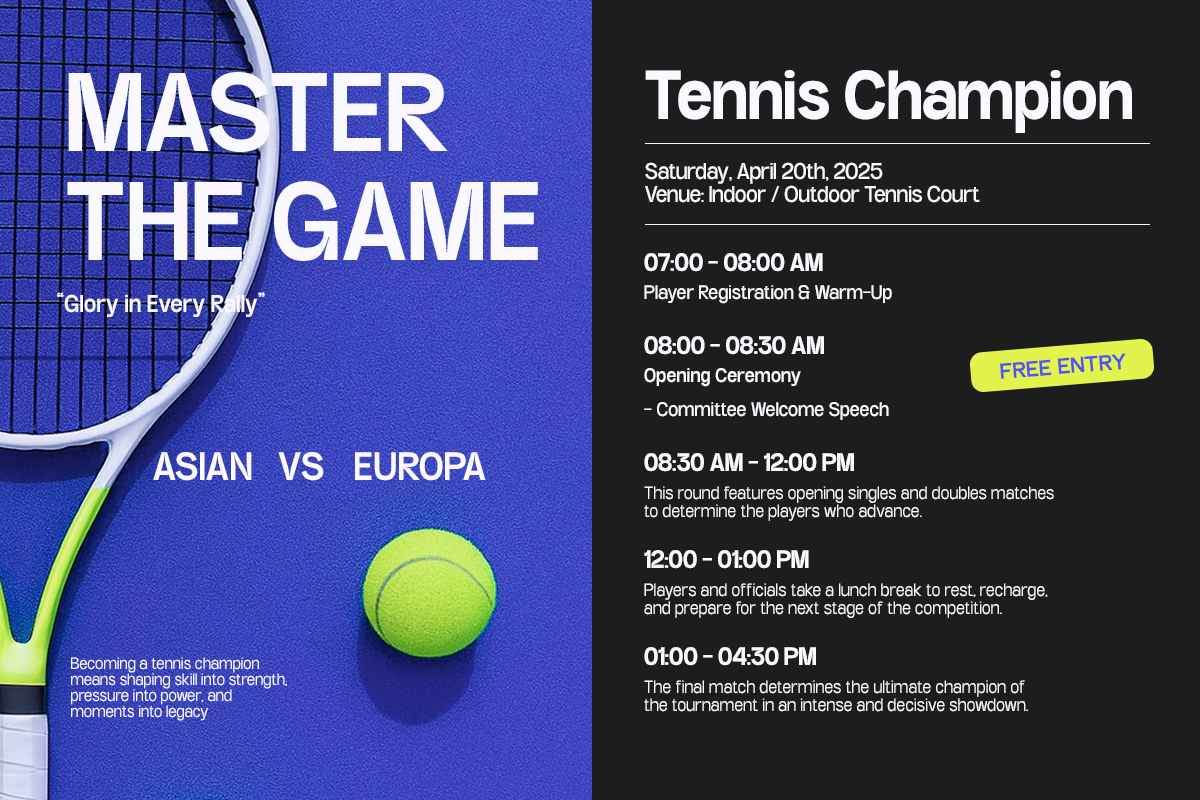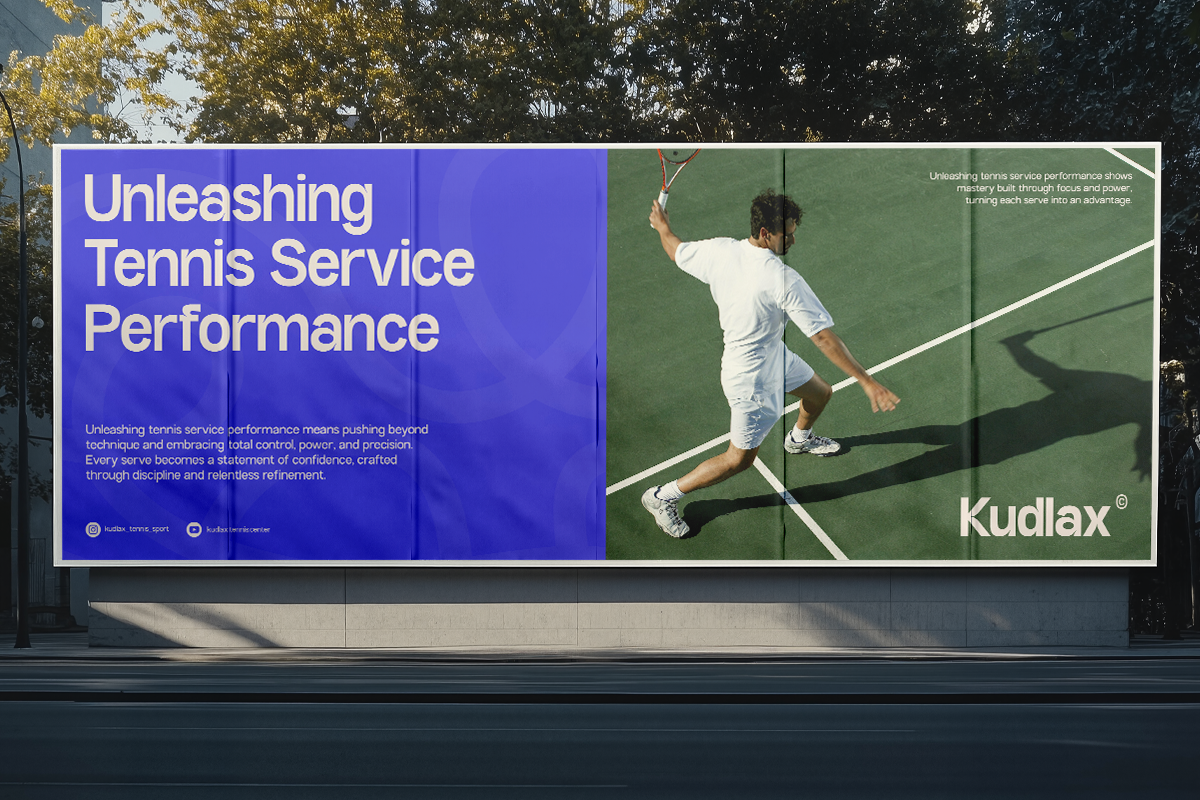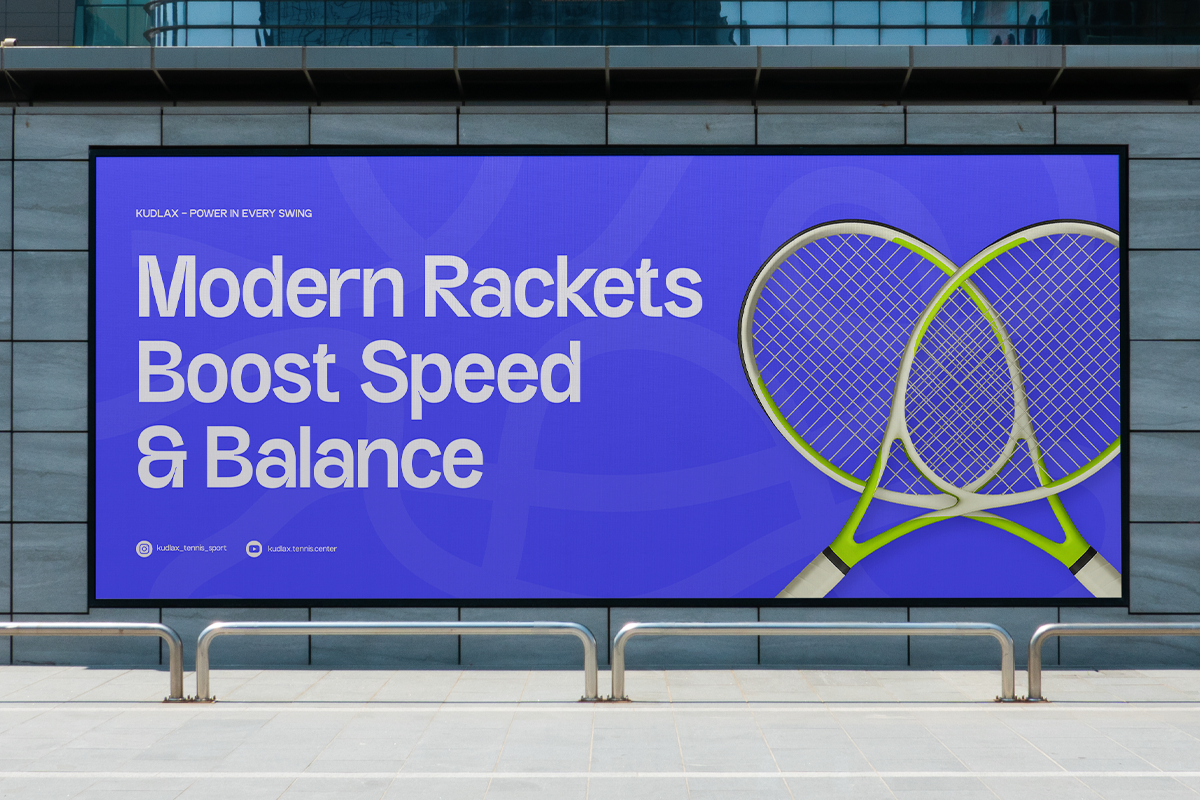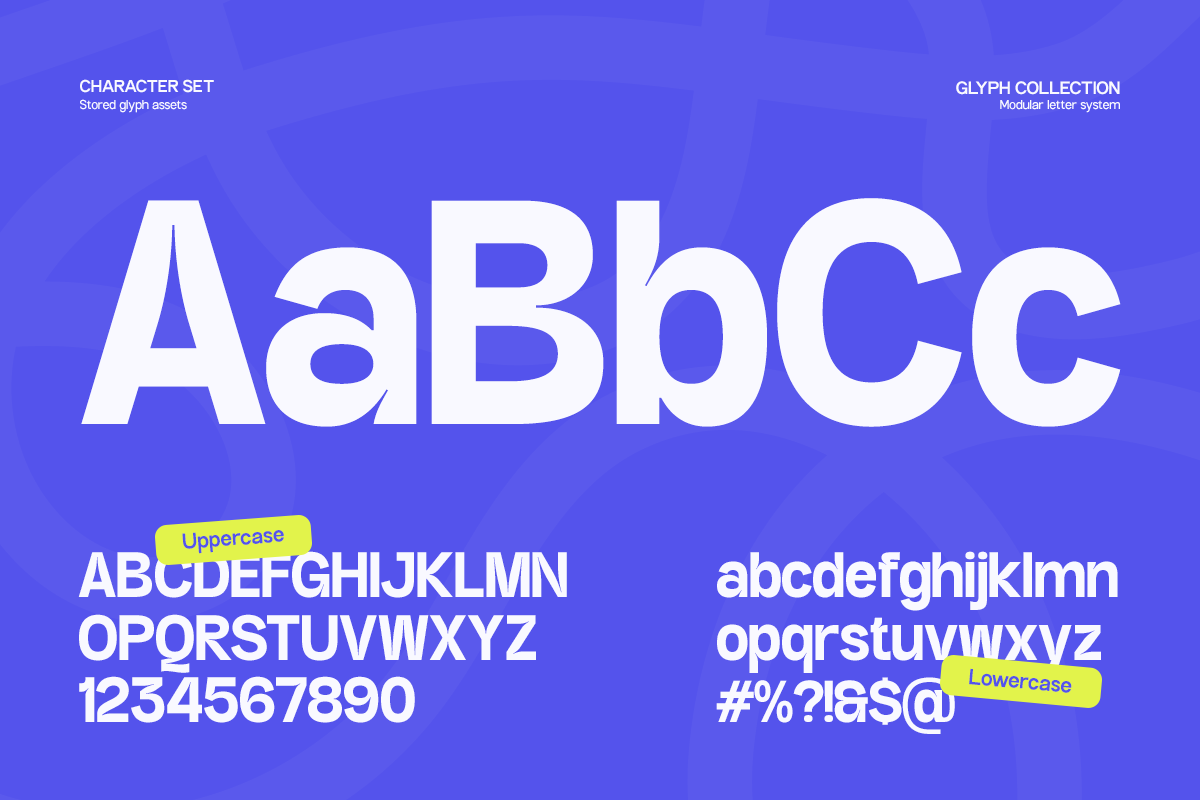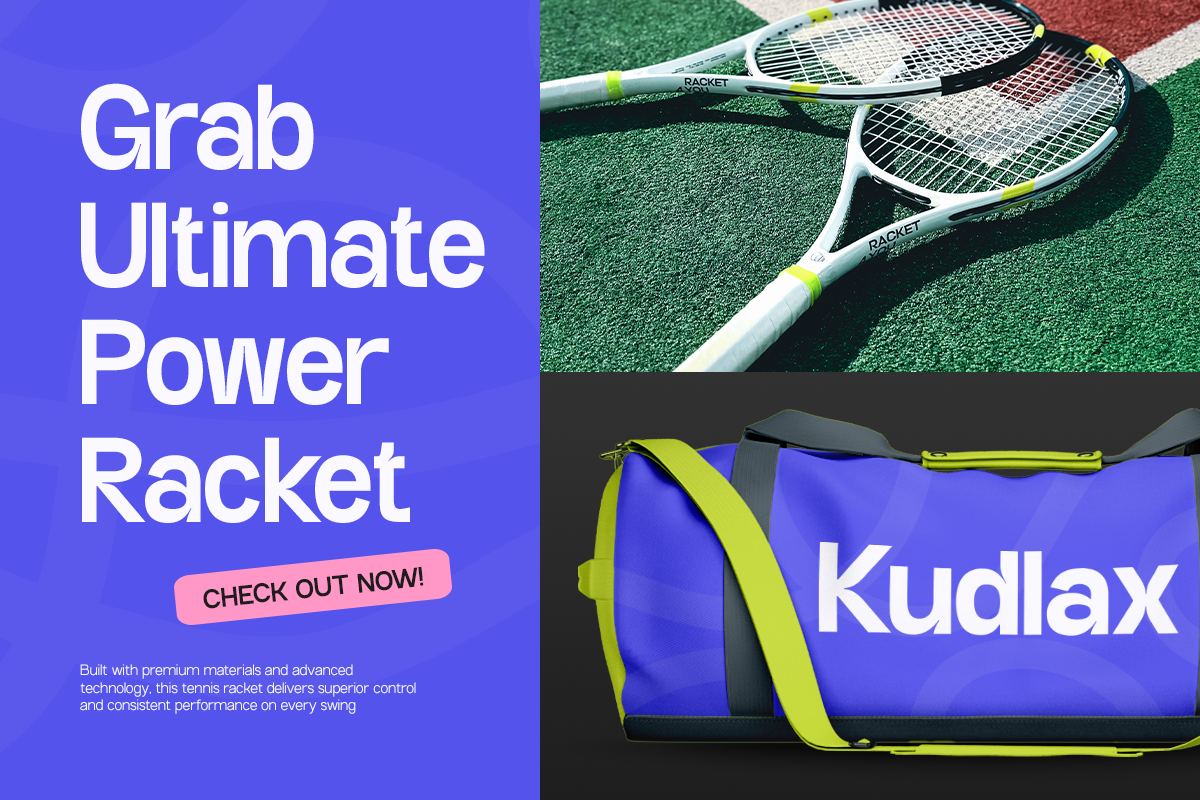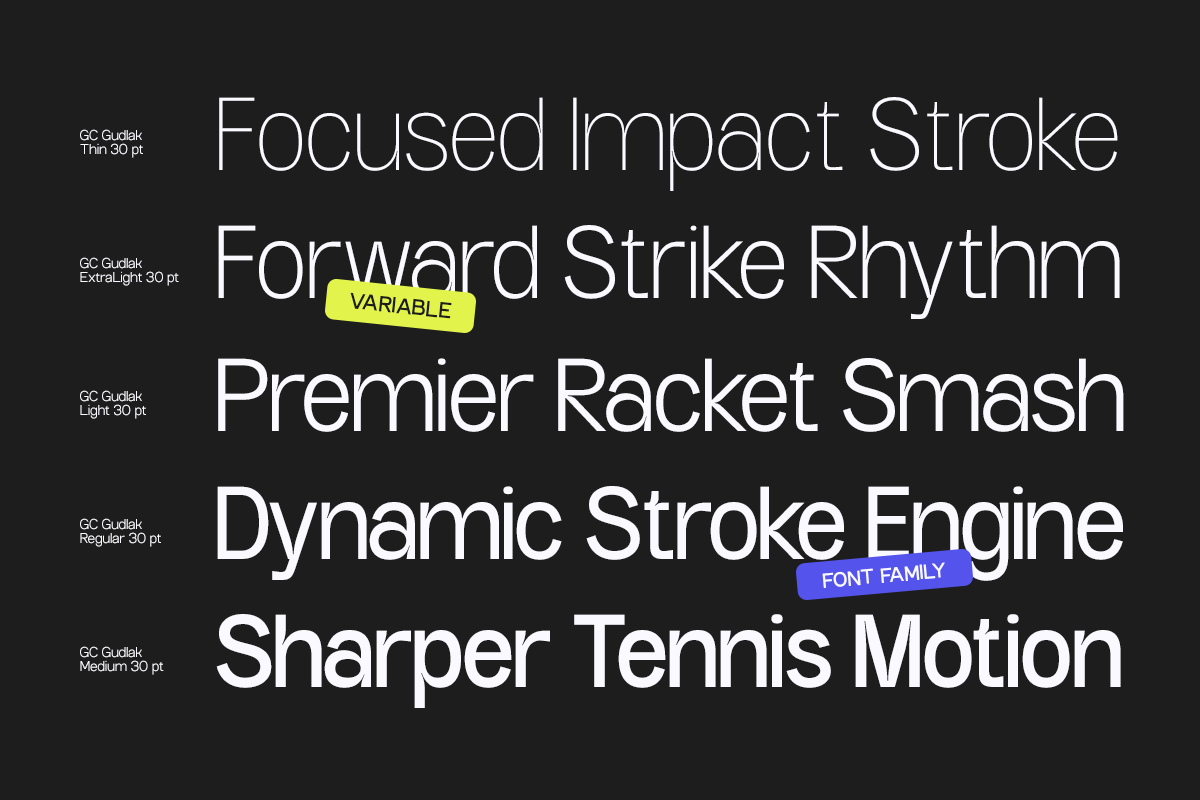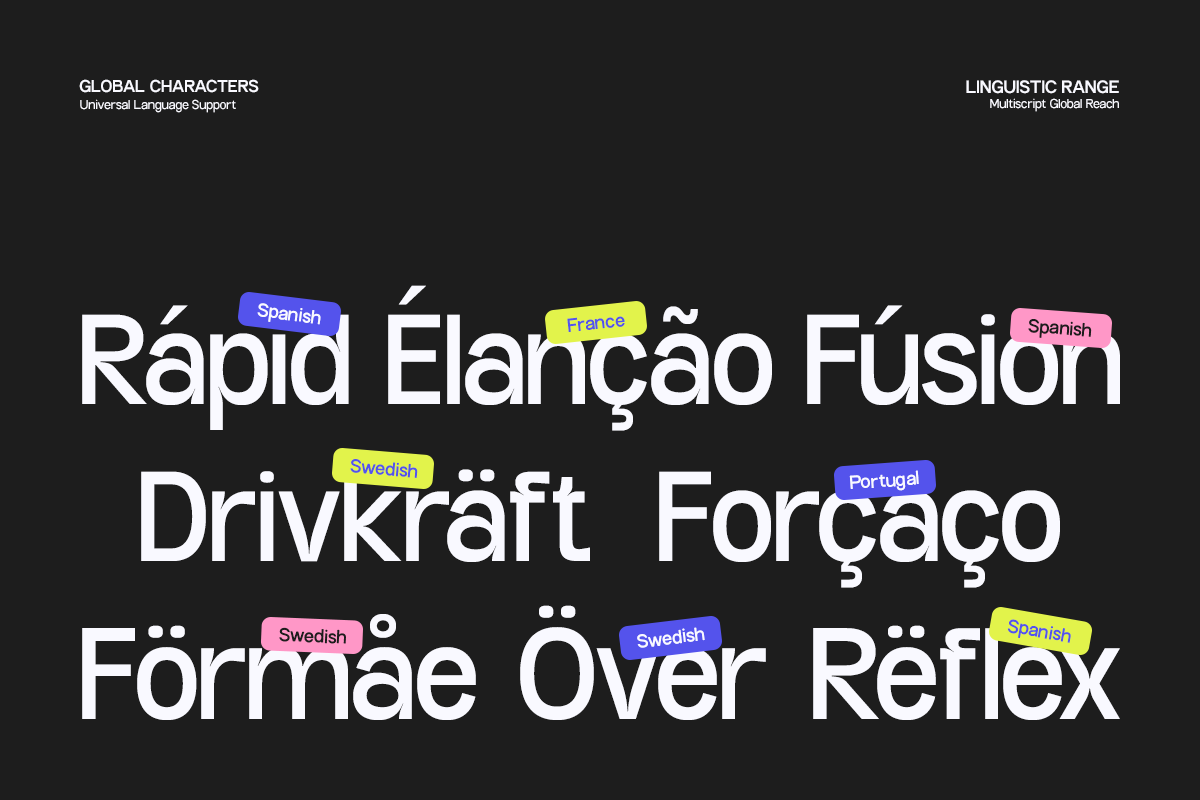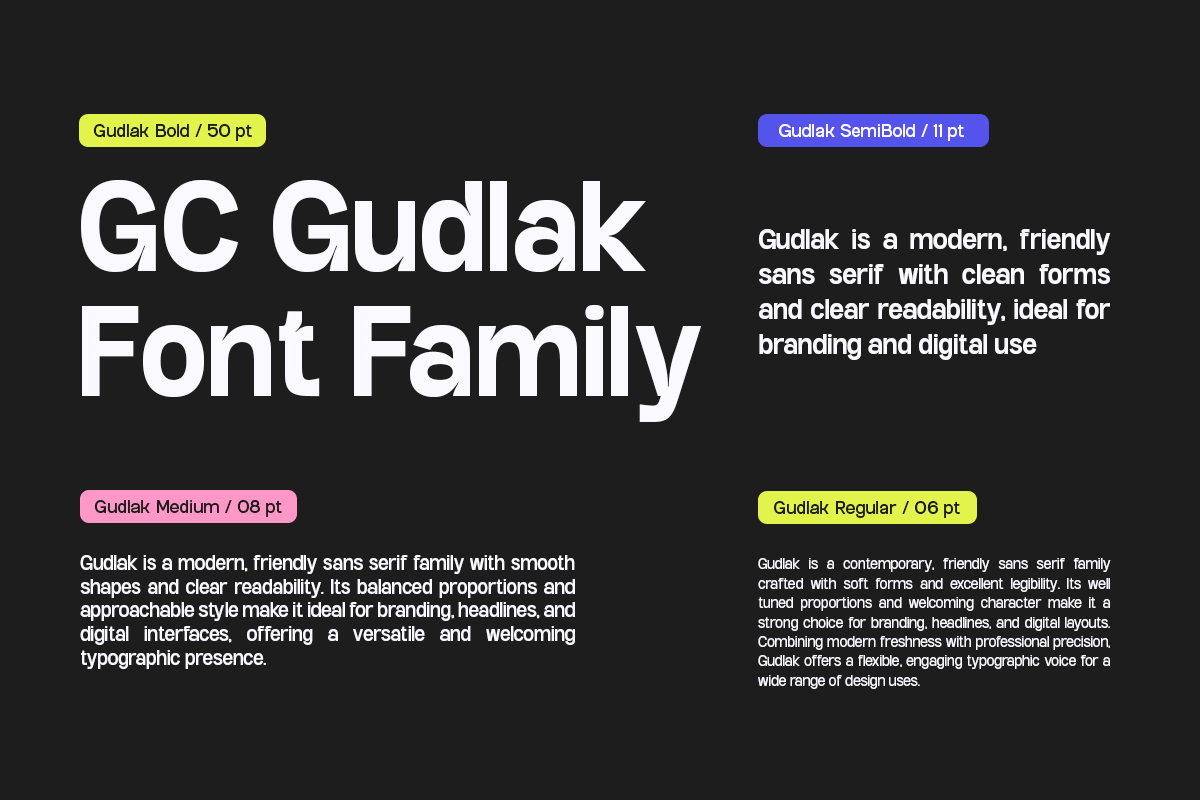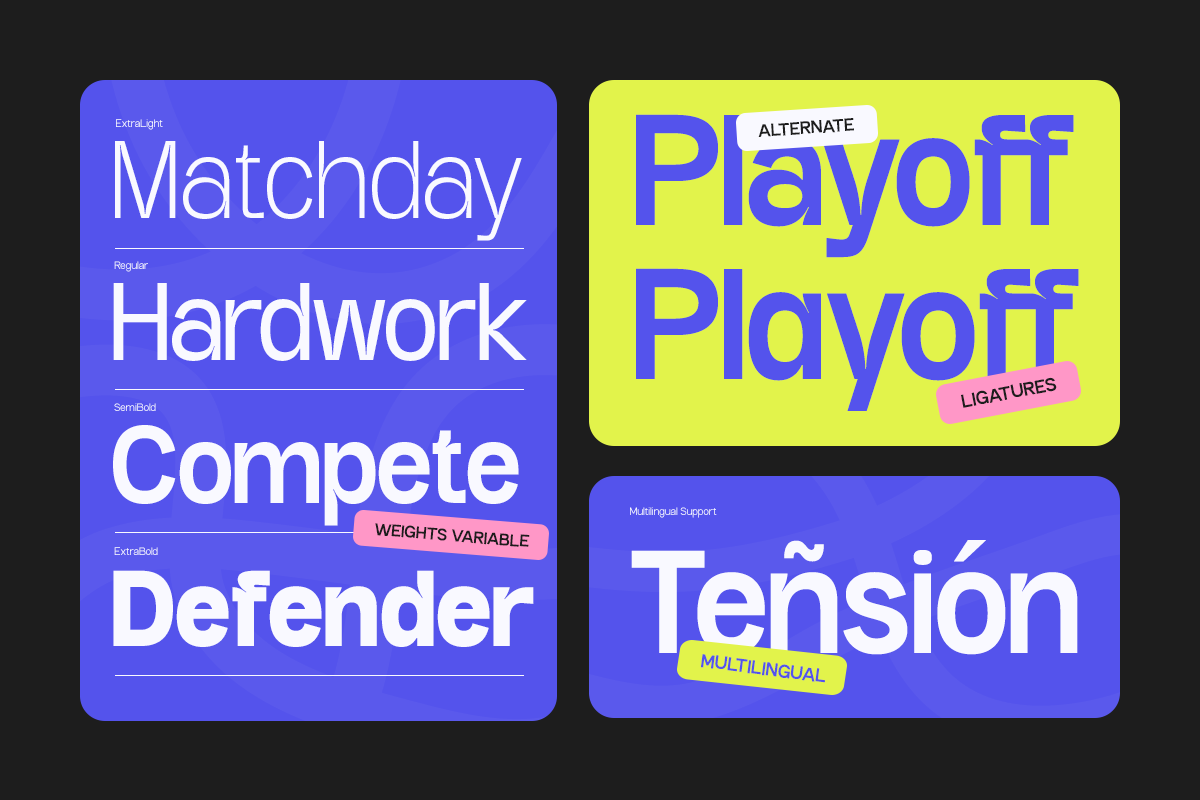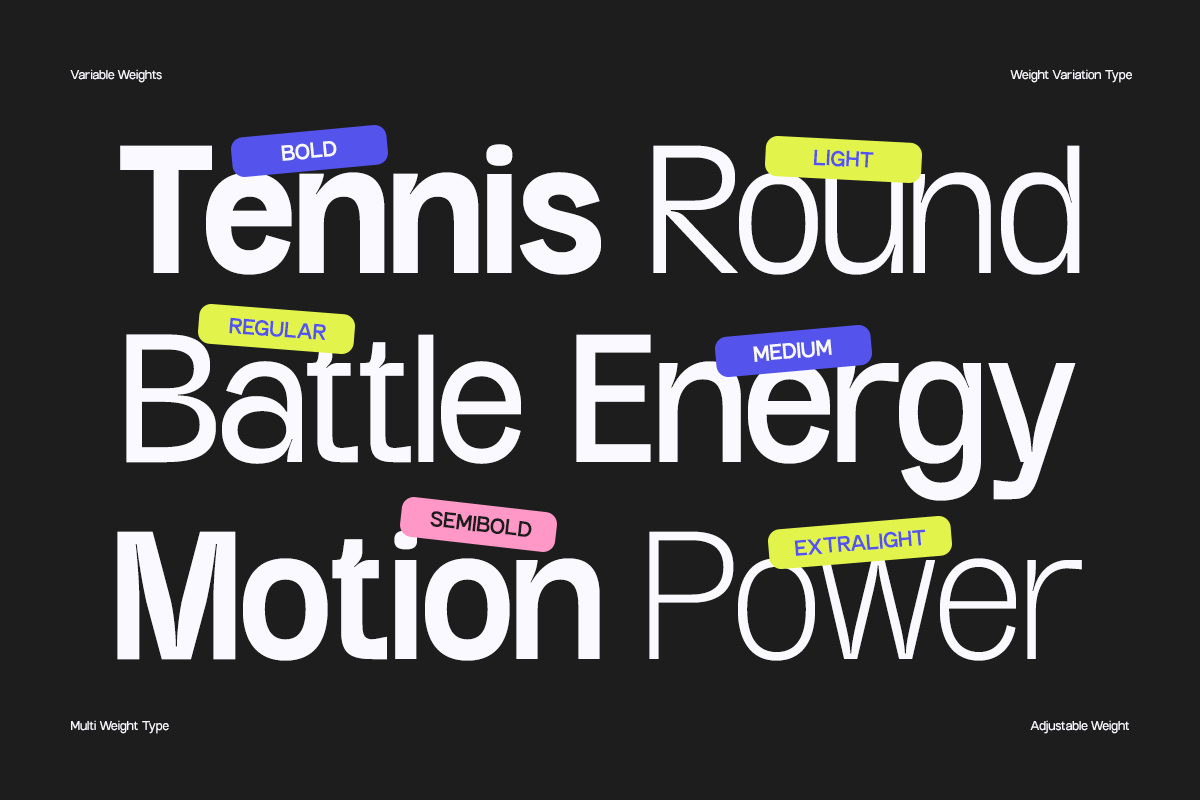
GC Gudlak - Modern Family Sans
GC Gudlak – Modern Family Sans is a contemporary sans serif type family designed to deliver a clean, friendly, and versatile voice for modern design systems. Built with balanced proportions and smooth yet confident forms, Gudlak adapts seamlessly across a wide range of visual applications—from branding and digital interfaces to editorial and print design.
As a complete font family, GC Gudlak offers a broad range of weights that support clear typographic hierarchy and consistent visual rhythm. Its well-crafted structure ensures excellent readability at both small and large sizes, making it a reliable choice for UI/UX design, modern layouts, presentations, and visual identities.
Blending modern simplicity with subtle character, GC Gudlak maintains neutrality without feeling cold or mechanical. Whether used for bold headlines, functional interface text, or minimalist compositions, it provides a strong and flexible typographic foundation built for clarity, adaptability, and everyday usability.
- Multiple Weights (Family System)
- Clean & Modern Sans Construction
Bring clarity, balance, and modern versatility into your design system with GC Gudlak – Modern Family Sans.